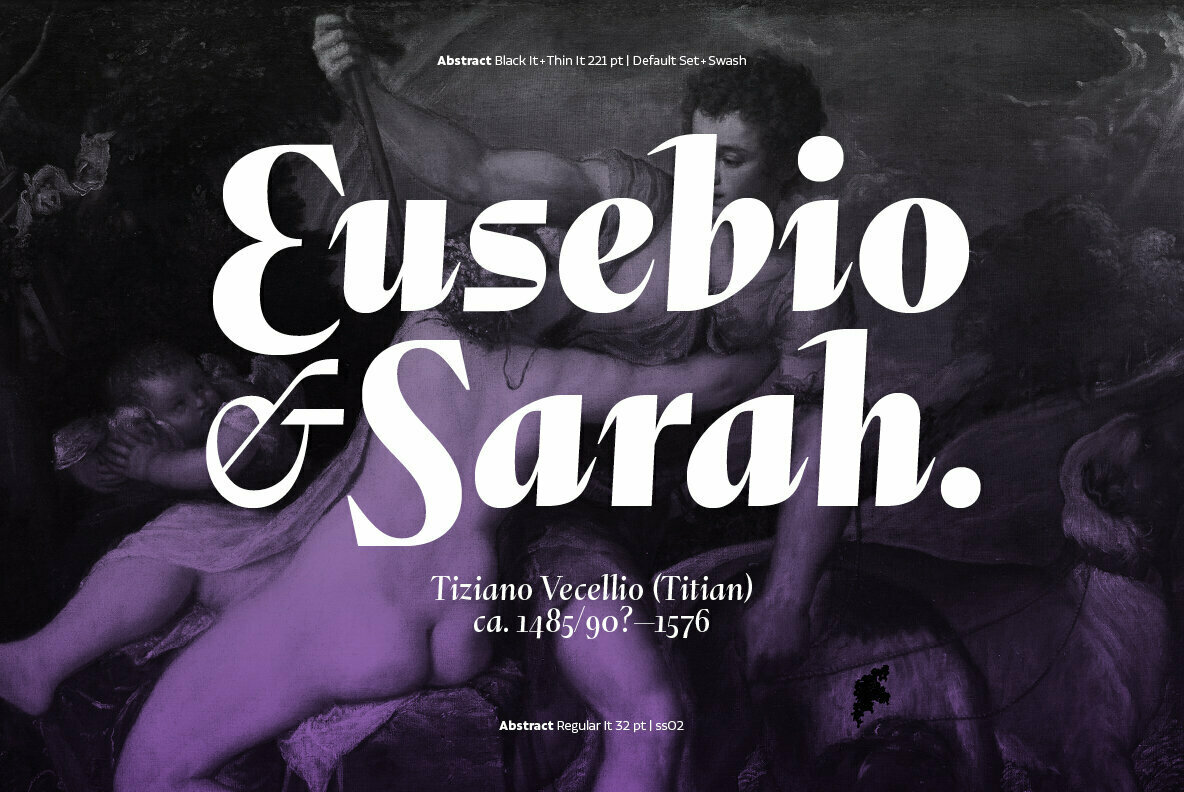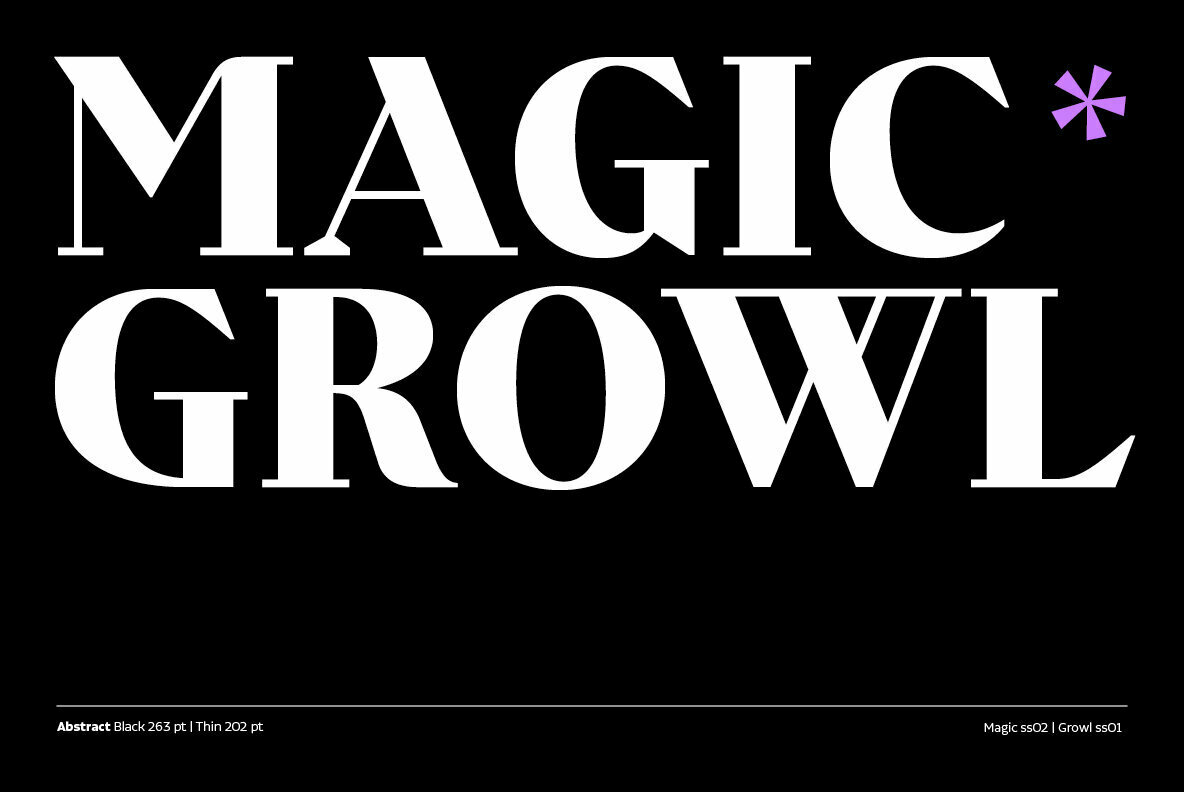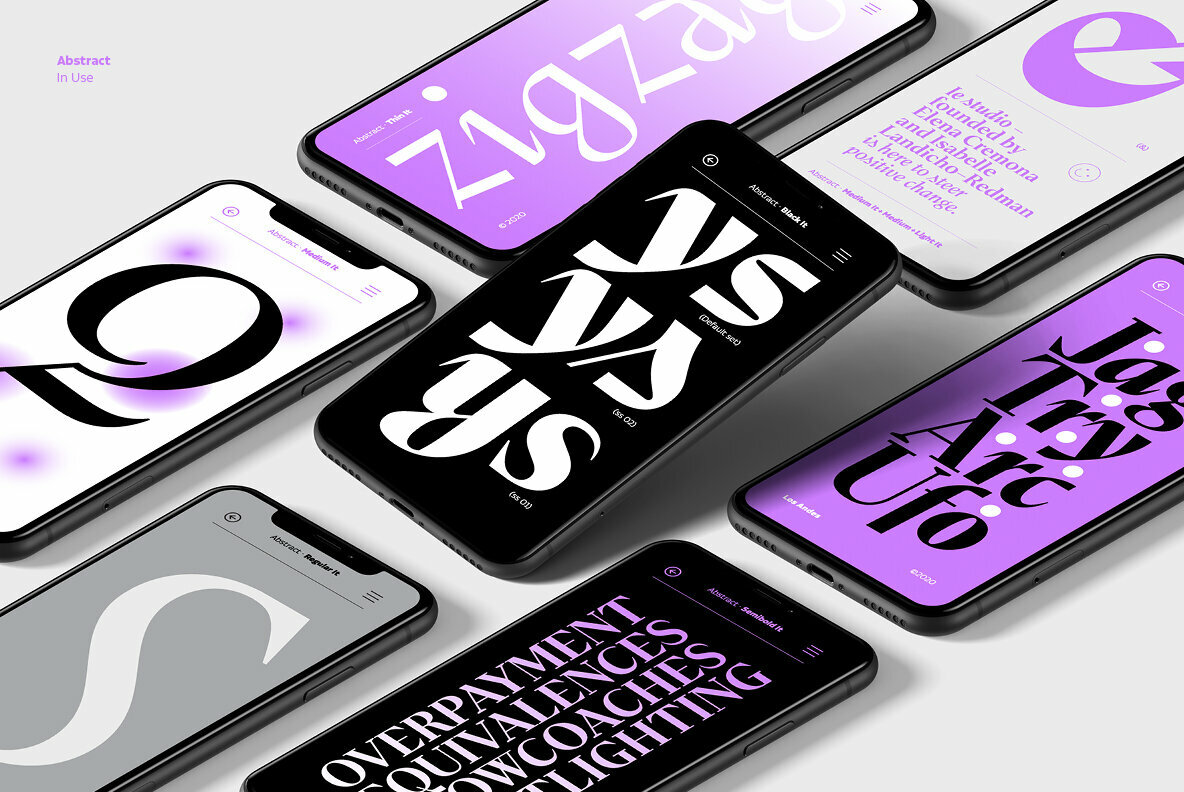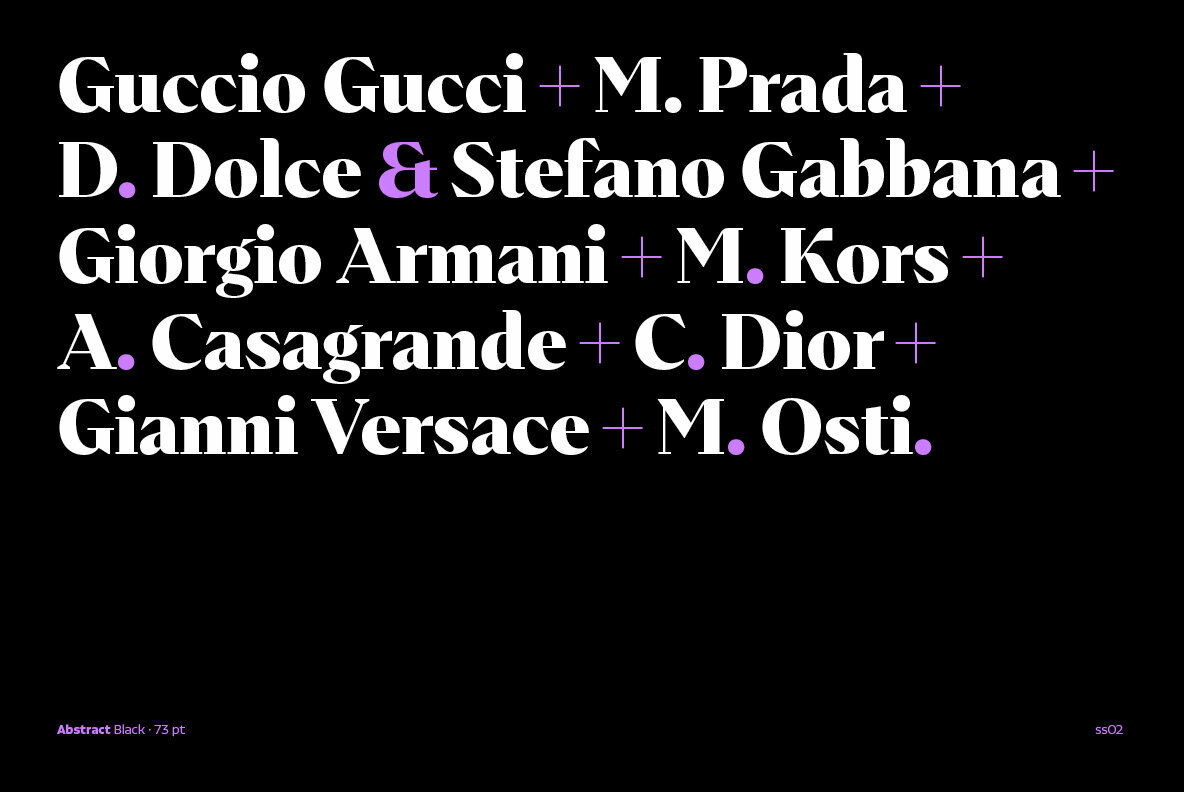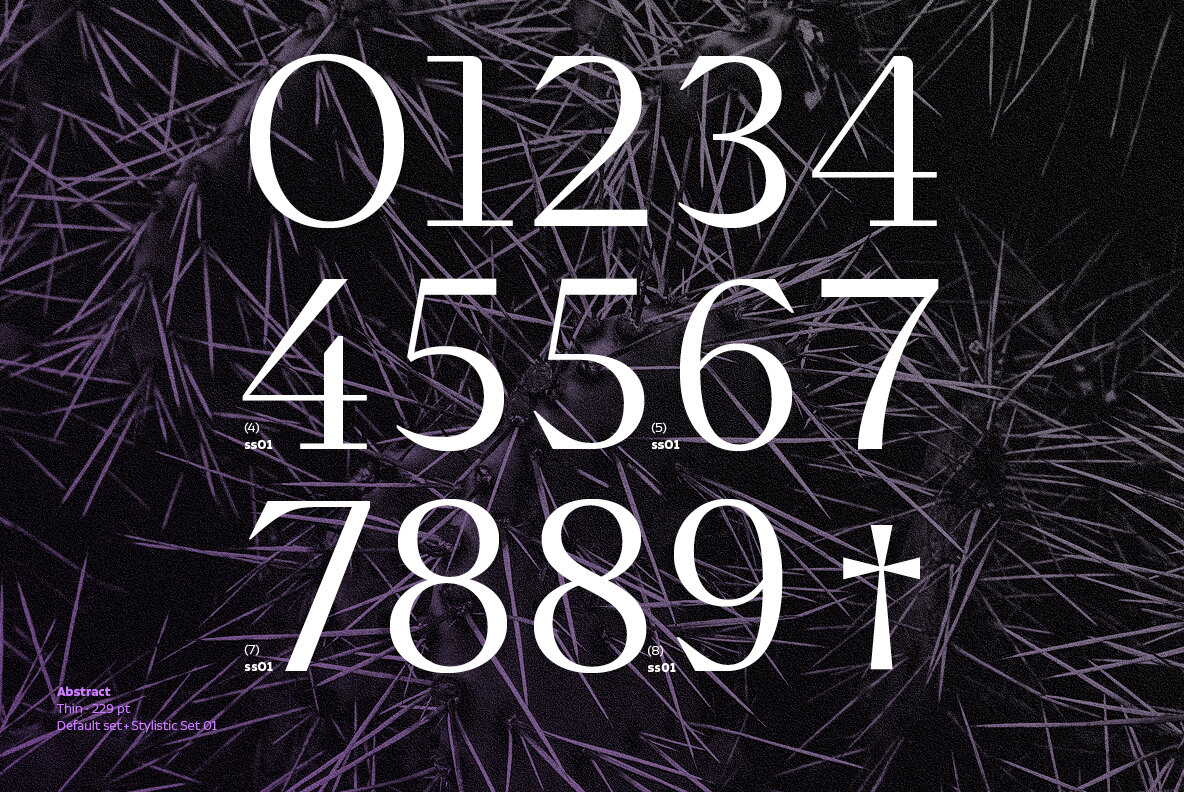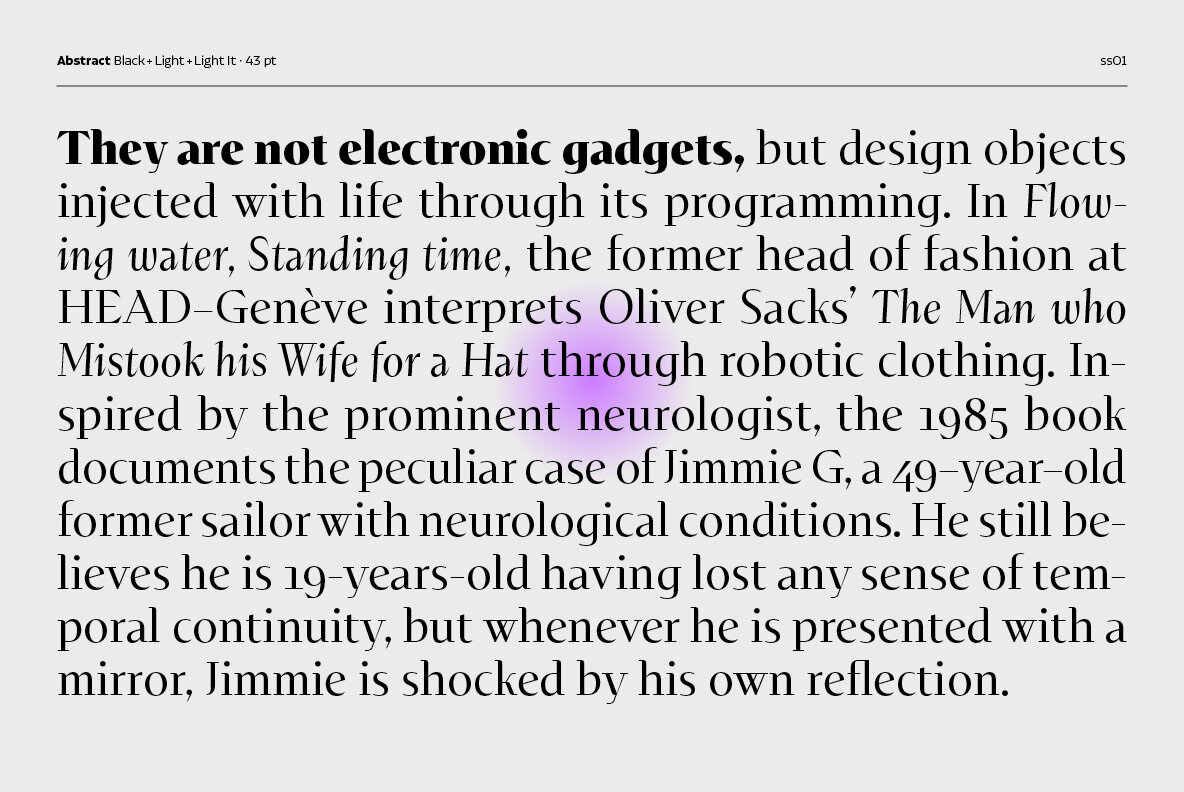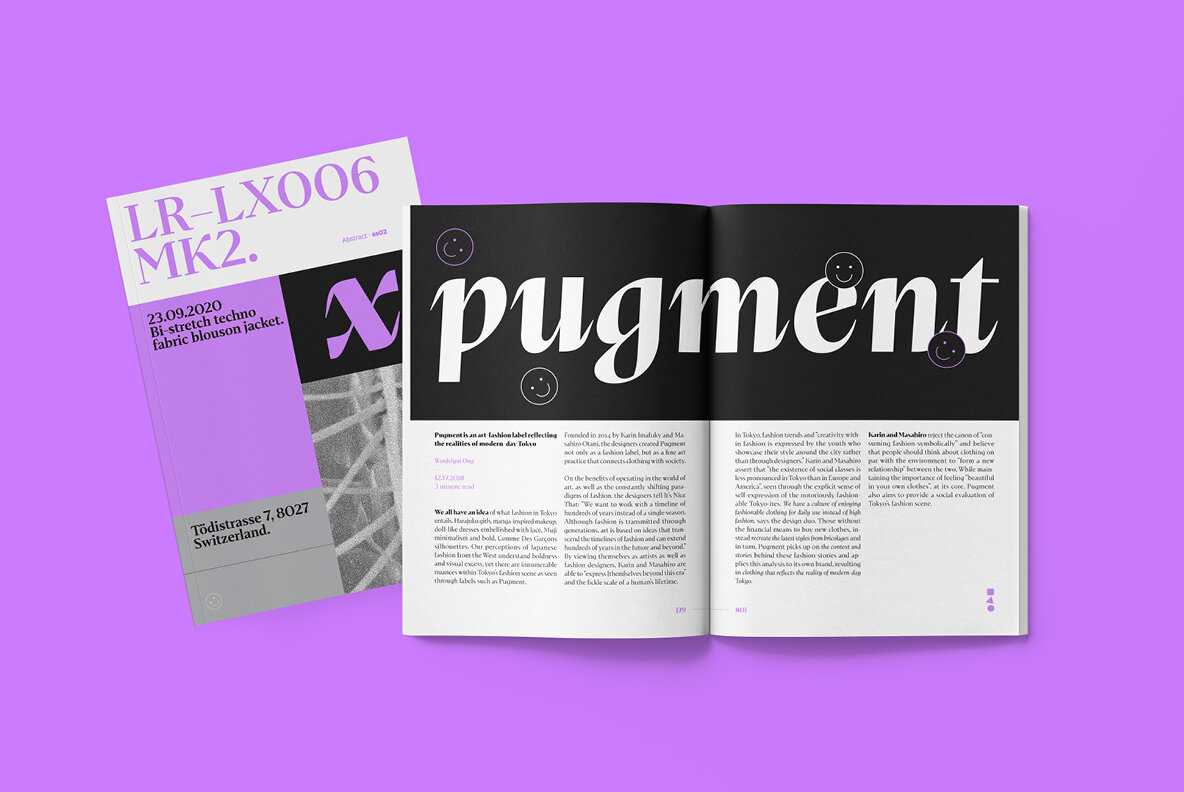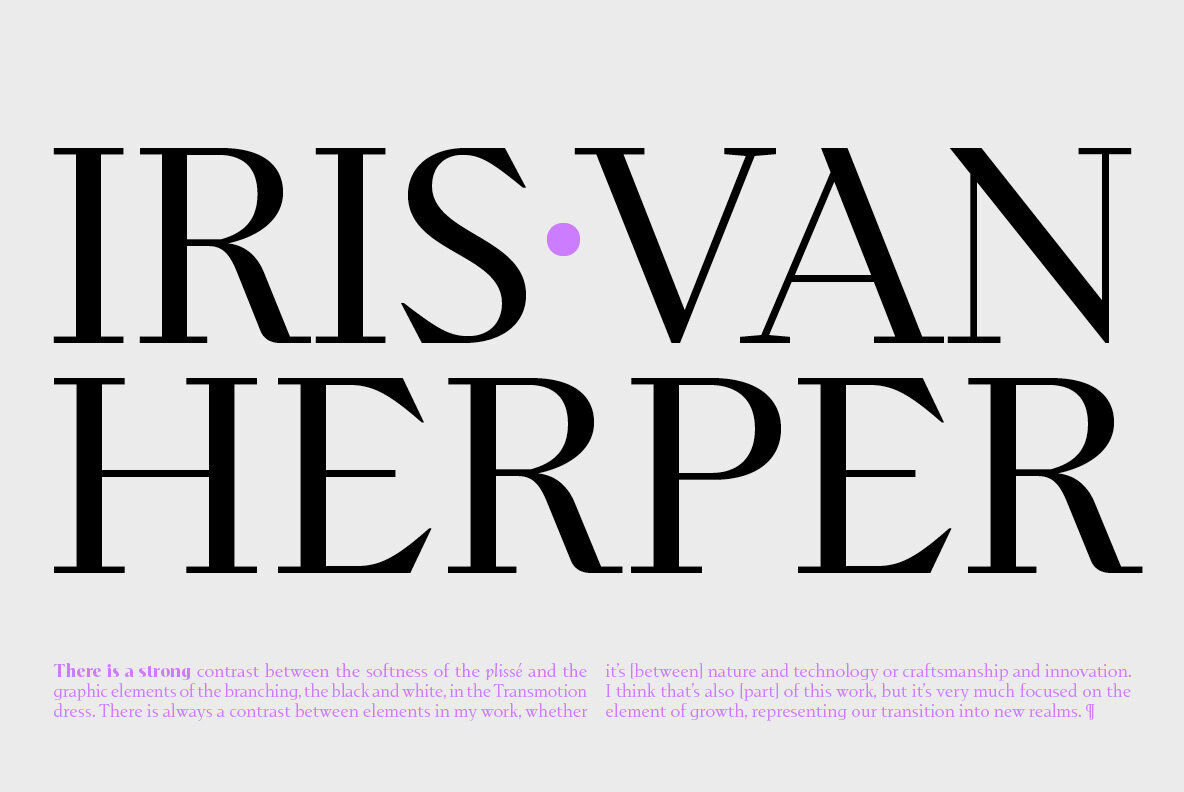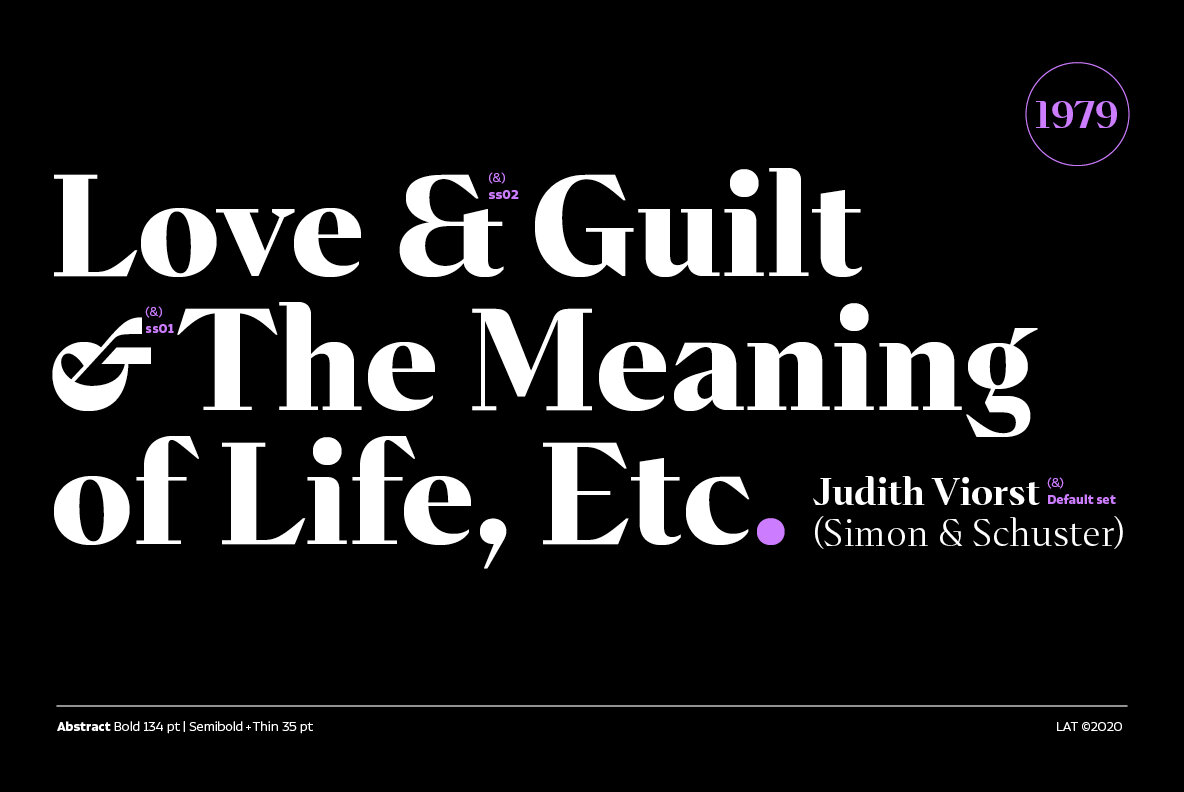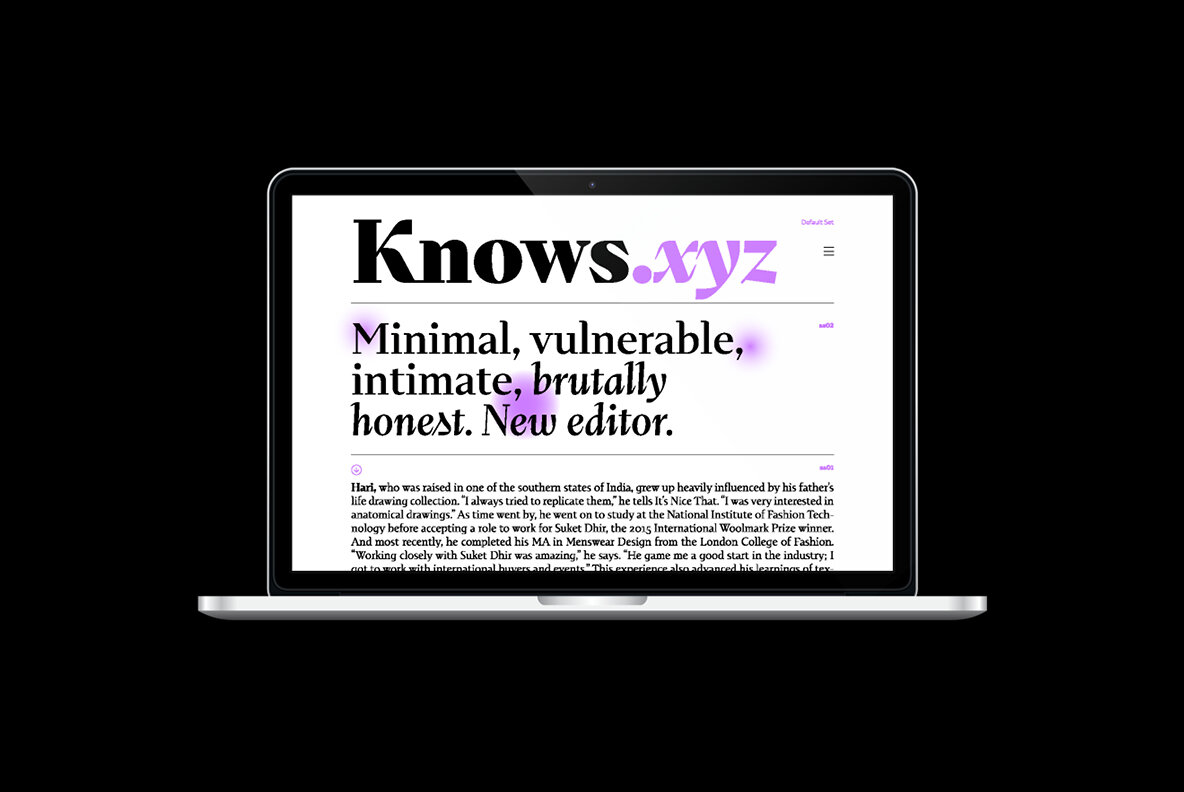
Abstract Font
Abstract is a contemporary and eclectic serif typeface inspired by today's life and created in times of pandemic. This family includes a true italic variant —that has its own personality— alternates, lining and old style figures, numerators and denominators & Cyrillic support.